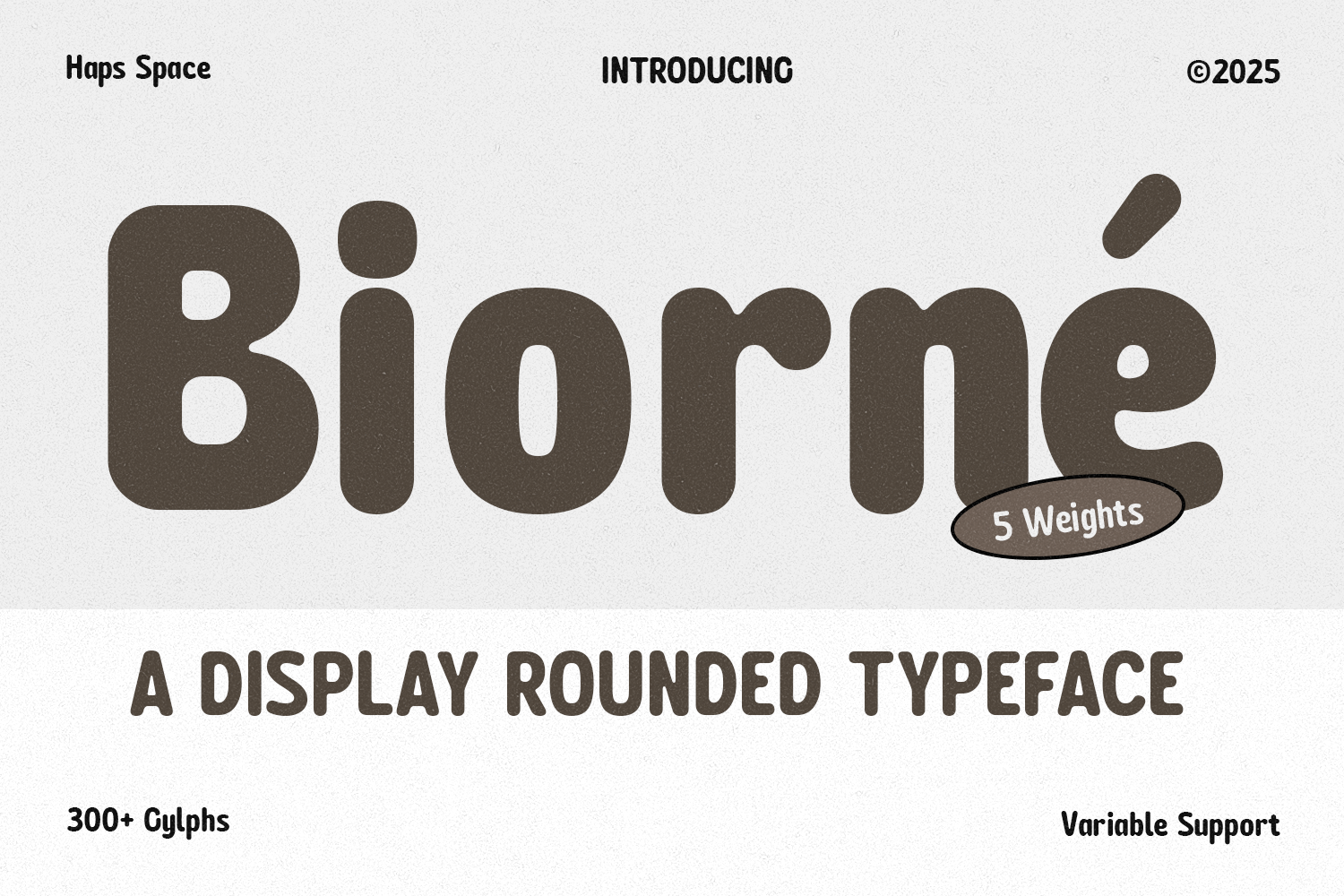
Biorne - Display Rounded Typeface
Biorne Typeface, a modern and versatile display rounded typeface designed to give your projects a friendly yet professional feel. With its soft, rounded terminals and bold, confident letterforms, Biorne is an excellent choice for branding, headlines, packaging, and digital interfaces. This typeface includes 5 weights, providing a range of options to create visual hierarchy and dynamic compositions. Featuring over 300 glyphs and full variable support, Biorne offers extensive language coverage and creative flexibility, making it a robust addition to any designer's toolkit.
- Unique Letterforms